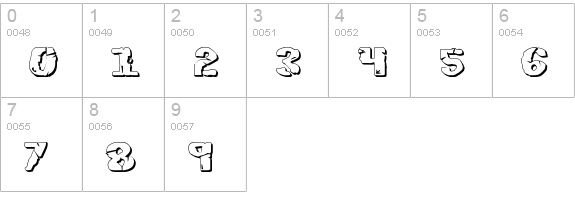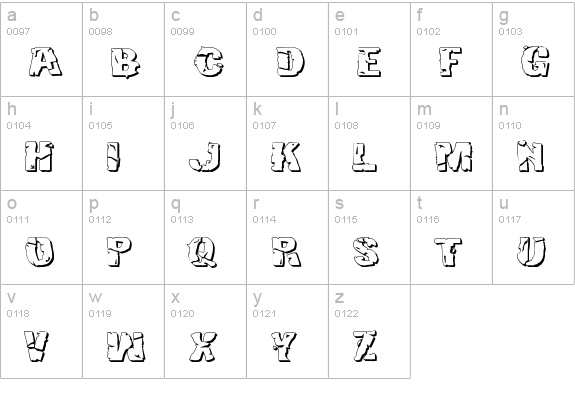
Hulkbusters 3D Font Details
The Hulkbusters 3D font is a powerful and dynamic typeface that exudes strength and impact. With its bold letterforms and three-dimensional design, this font is perfect for making a statement in your designs. Whether you are creating posters, banners, or logos, the Hulkbusters 3D font will command attention and leave a lasting impression. What's even better is that the Hulkbusters 3D font is available for free download at FontsMarket.com. You can easily access this striking font and use it in your projects without any cost. Don't miss out on the opportunity to add the Hulkbusters 3D font to your collection and elevate your designs with its bold and impactful style. Download it now and unleash the power of this impressive typeface!